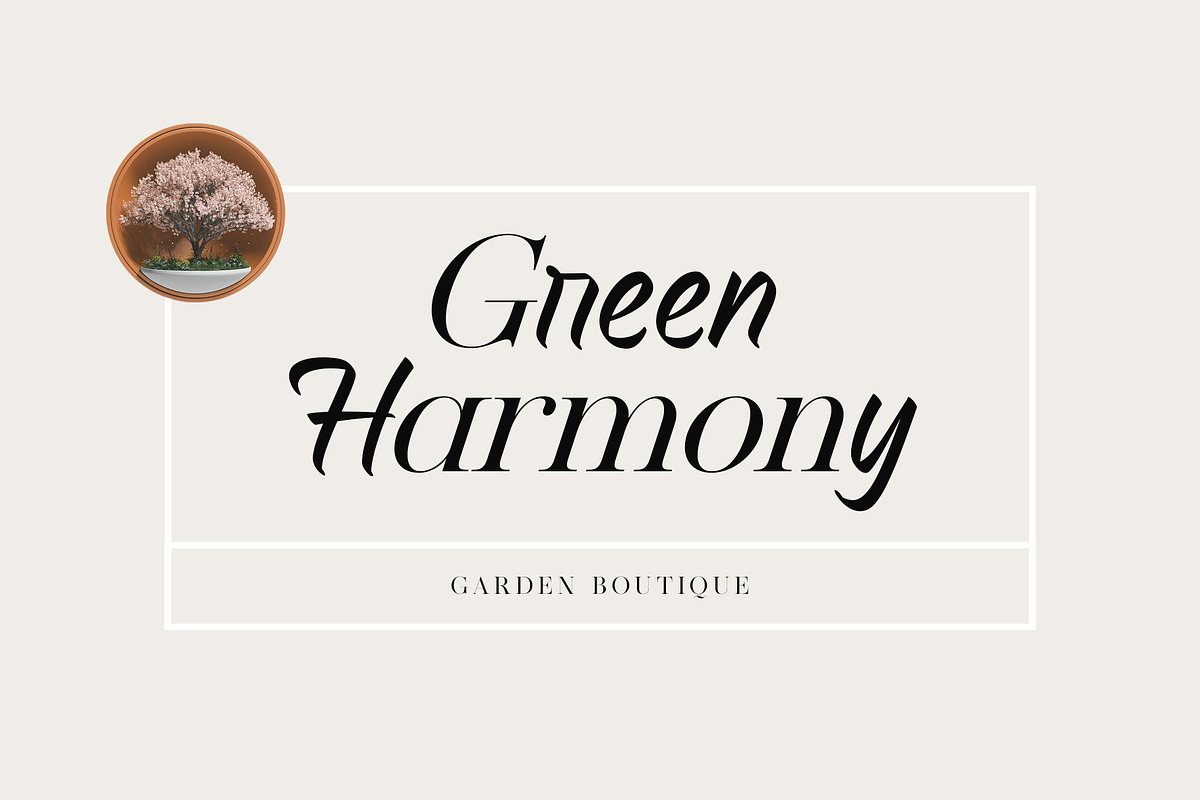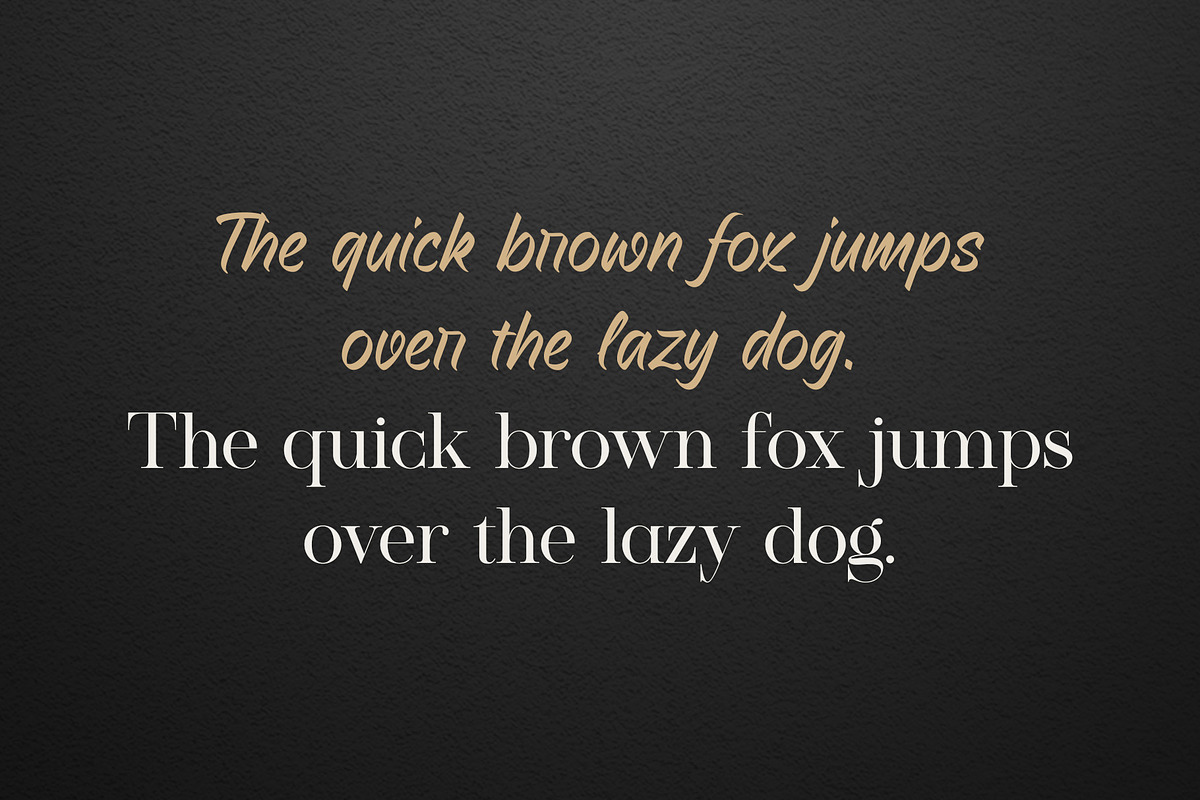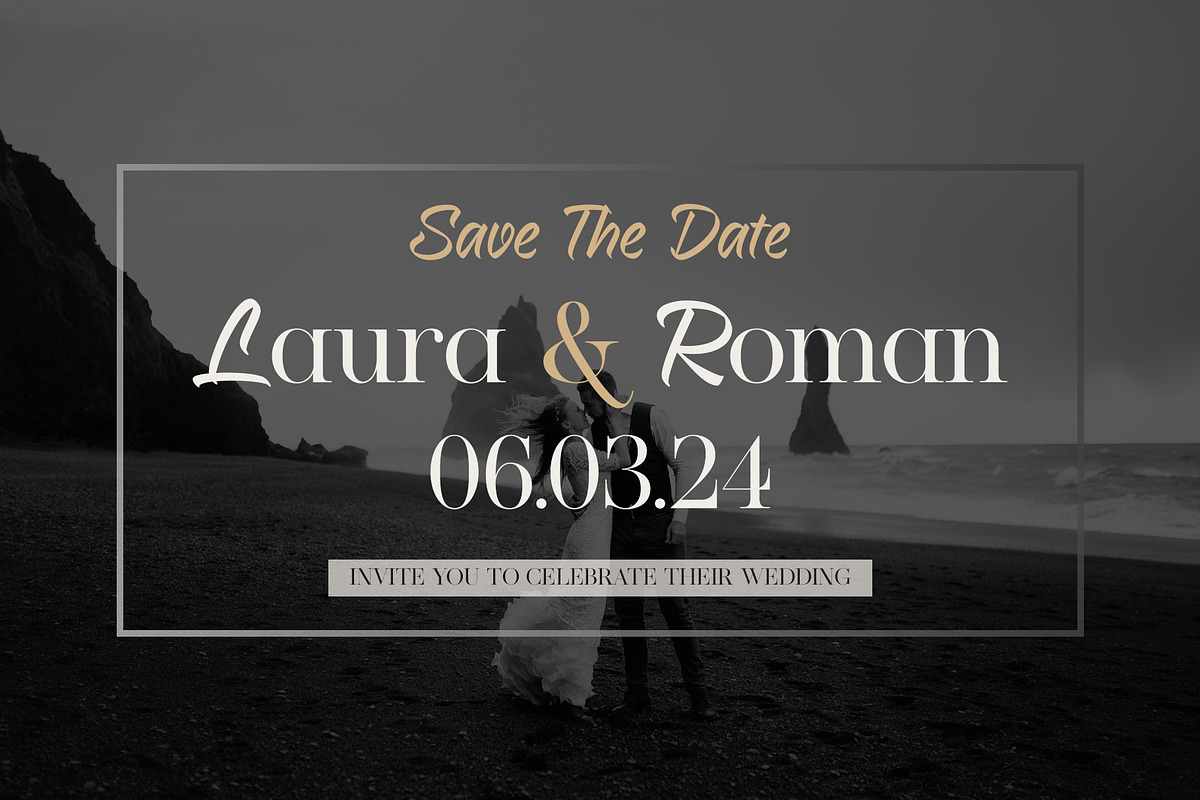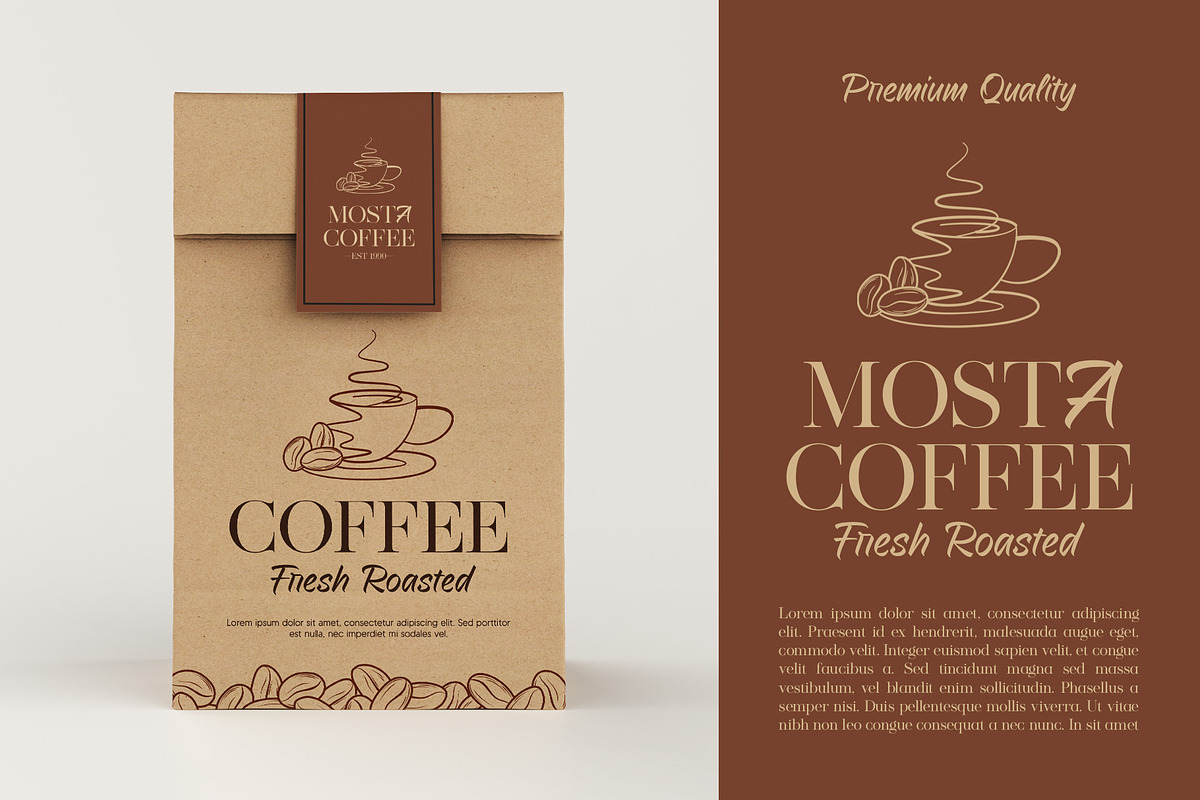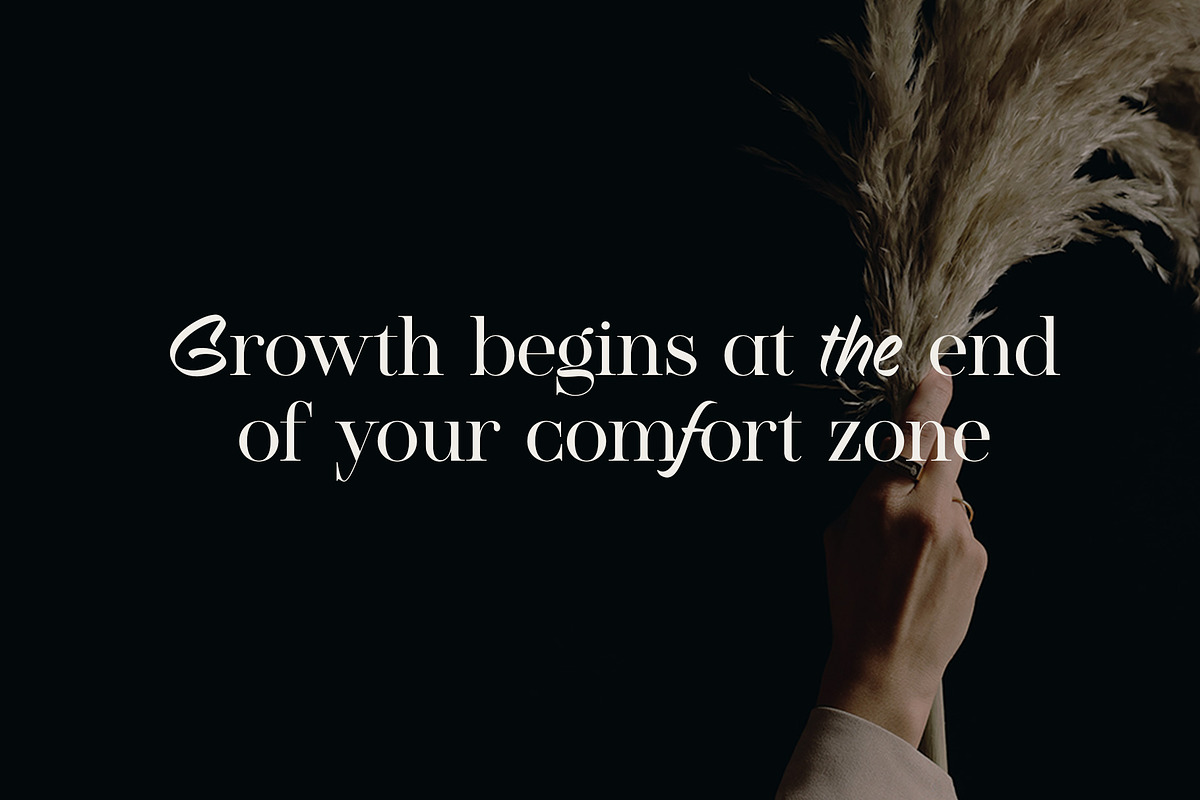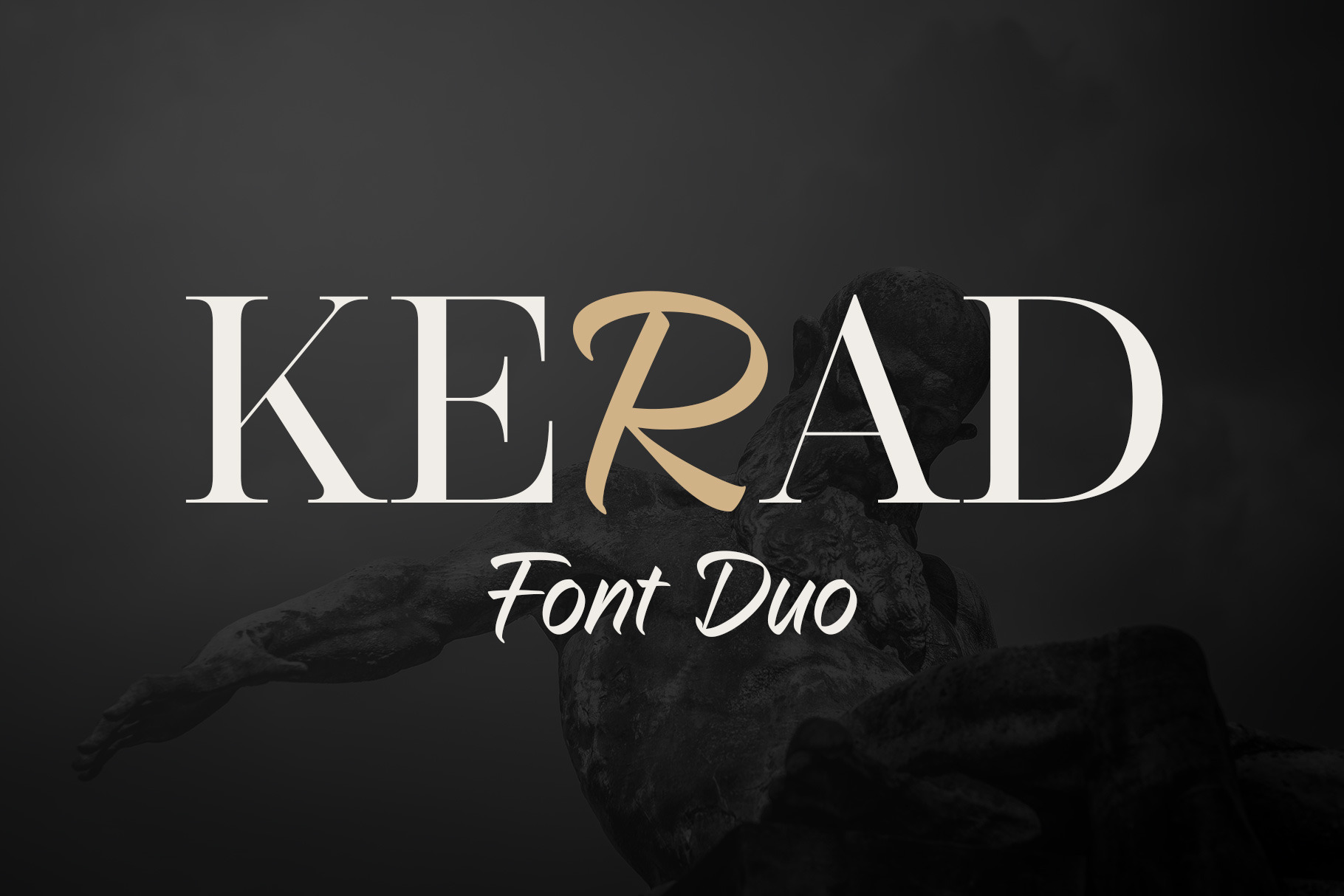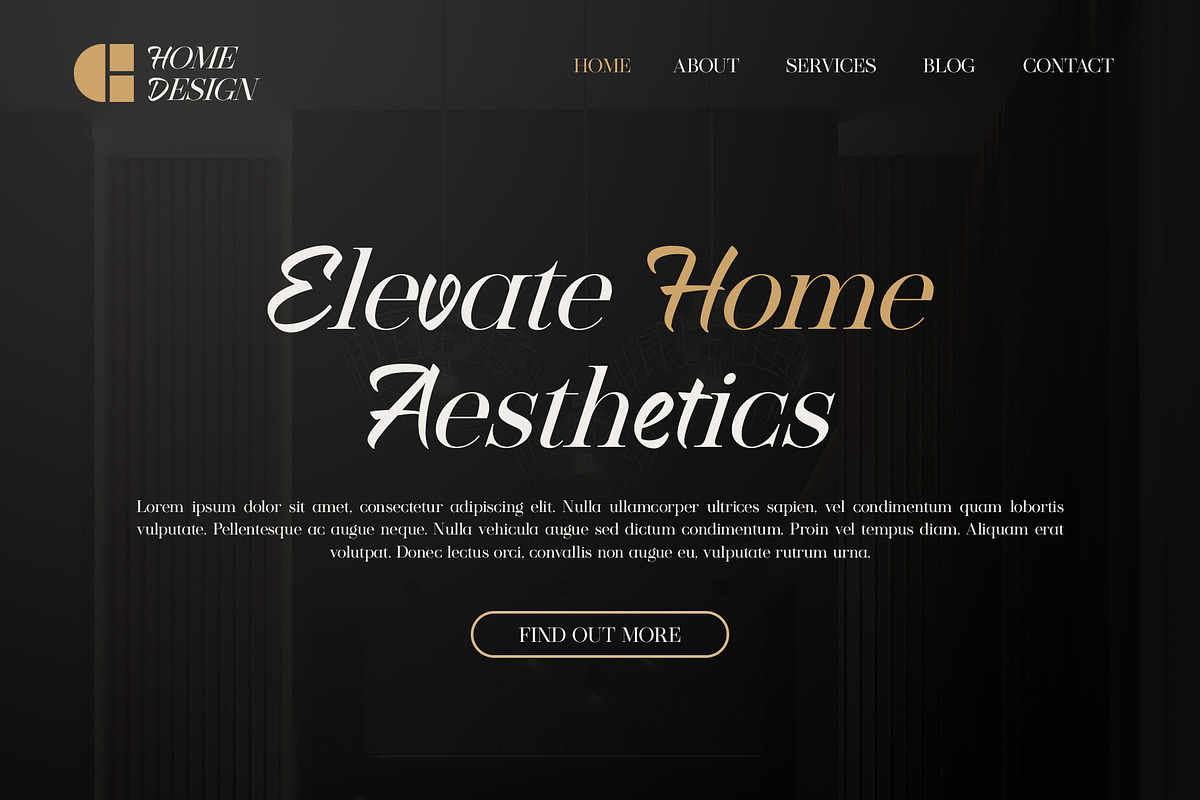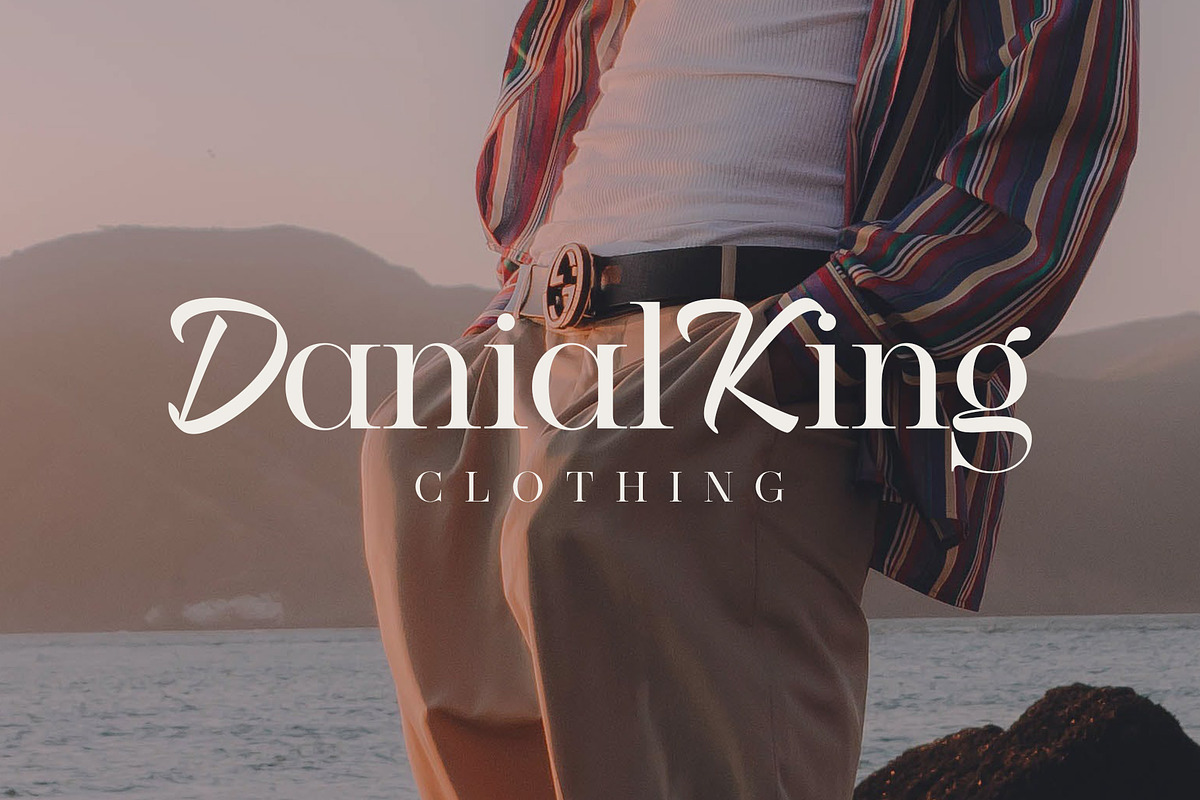
Kerad | Font Duo
Kerad Font Duo is a captivating combination of modern serif and handwritten font, both seamlessly mixable to create a unique and appealing impression. It is suitable for various design projects such as logos, branding, packaging design, web design, titles, posters, printing, advertising, and much more.
- Serif & Script